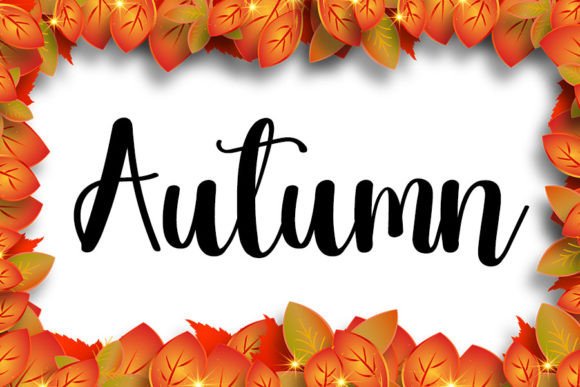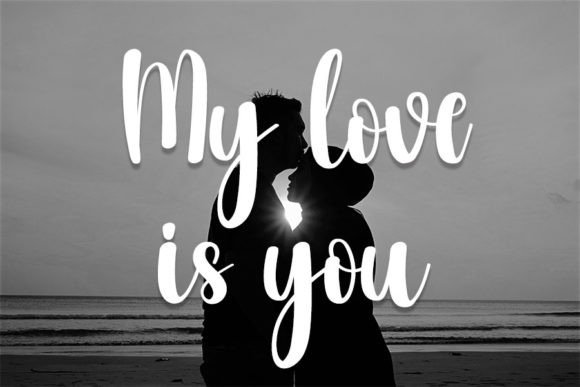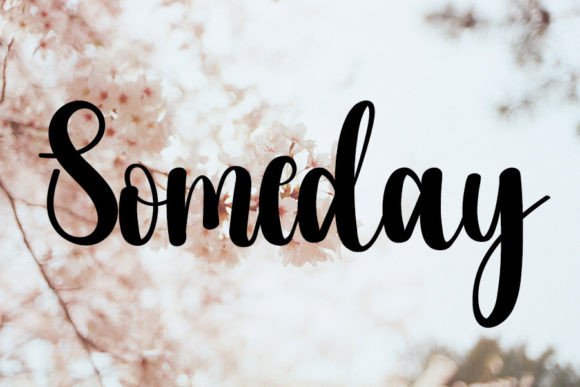
Blush Font
Add a Touch of Grace with Blush Handwritten Font
The Blush Handwritten Font is a trendy and refined script that brings timeless elegance to modern design. With its flowing curves and hand-drawn appeal, this font adds sophistication and warmth to every project. It’s inspired by classic calligraphy, yet shaped with a contemporary touch that feels fresh, stylish, and professional.
Ideal for Branding, Invitations, and Romantic Design
Blush is perfectly suited for a wide variety of creative uses. Whether you’re designing wedding invitations, greeting cards, product packaging, or event signage, this font offers a beautiful balance of charm and clarity.
Moreover, it shines in branding projects, particularly for beauty, fashion, lifestyle, and boutique businesses that want to communicate elegance and softness in their identity. From logo design to Instagram quotes, Blush brings emotional connection to every word.
Inspired by Classic Calligraphy with a Fresh Look
One of the highlights of the Blush Handwritten Font is its graceful nod to traditional calligraphy. The font features delicate strokes, graceful flourishes, and organic movement, making it feel handwritten yet polished.
Despite its decorative nature, it remains legible at various sizes. This makes it suitable for both display headlines and subheadings, allowing you to use it consistently throughout your design.
Designed to Shine in Both Print and Digital Formats
Whether you’re working on digital graphics, printable templates, or custom merchandise, Blush adapts effortlessly. Its quality remains sharp across different mediums, making it ideal for both screen and paper.
For a refined look, pair it with clean serif or sans-serif fonts. This combination enhances contrast and ensures that the handwritten elegance of Blush stands out beautifully.
Why Designers Love Blush Handwritten Font
Here’s why Blush is a favorite among creatives:
• Elegant and stylish handwritten script
• Inspired by timeless calligraphy with a modern twist
• Perfect for weddings, branding, and editorial layouts
• Clean and readable at all sizes
Elevate Your Designs with Romantic Simplicity
In conclusion, the Blush Handwritten Font is a sophisticated typeface that adds a personal and romantic touch to your designs. It combines the best of two worlds: the charm of classic calligraphy and the ease of modern usability.
If you’re looking for a handwritten font that conveys elegance, personality, and timeless appeal, Blush is the perfect choice for your next project.